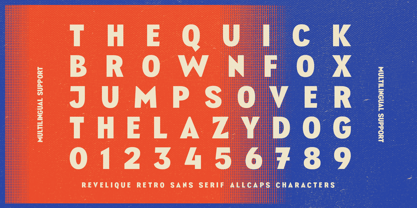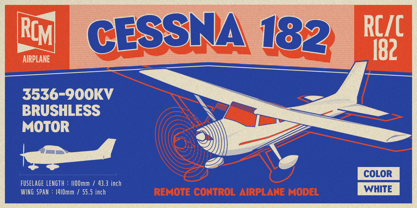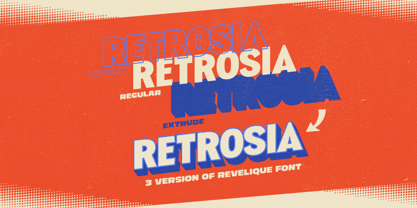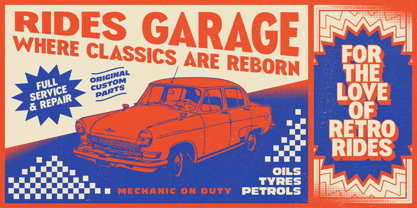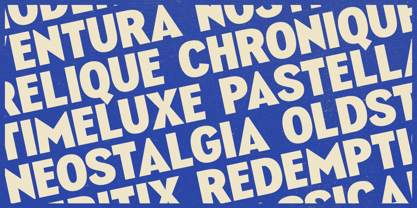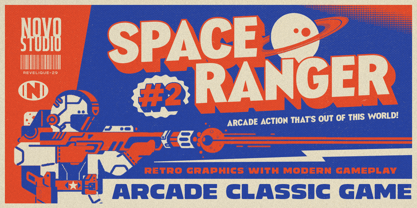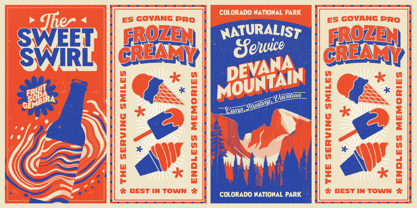
Revelique
by Typeskets
Revelique is a bold and stylish retro sans serif font, designed to bring character and energy to your designs. Perfectly blending vintage aesthetics with a modern twist, Revelique is versatile and ideal for various creative projects such as posters, logos, headlines, packaging, and more.
This font family comes in three distinctive styles: Regular, Outline, and Extrude, giving you the flexibility to create layered, dynamic, and standout typography. With its timeless charm and playful retro vibe, Revelique is the perfect choice to make your designs unforgettable!